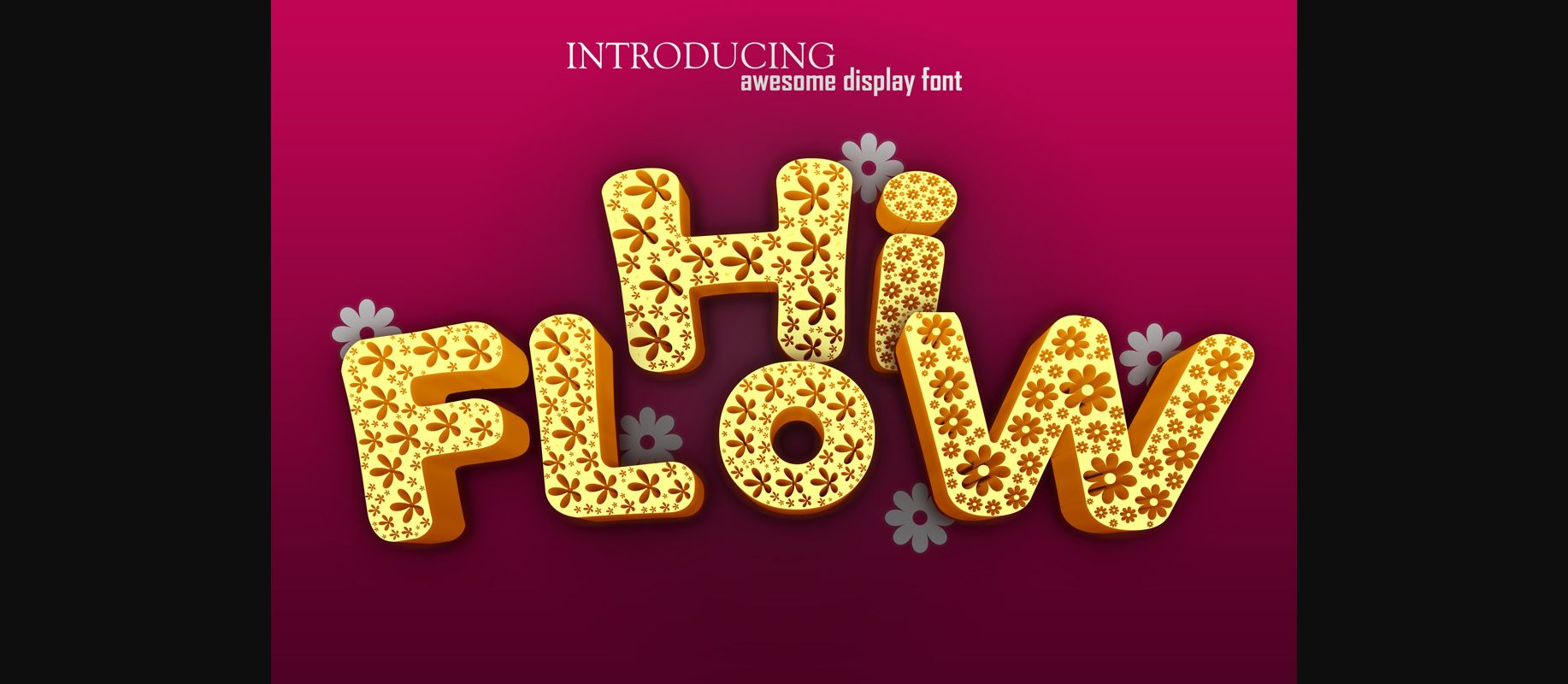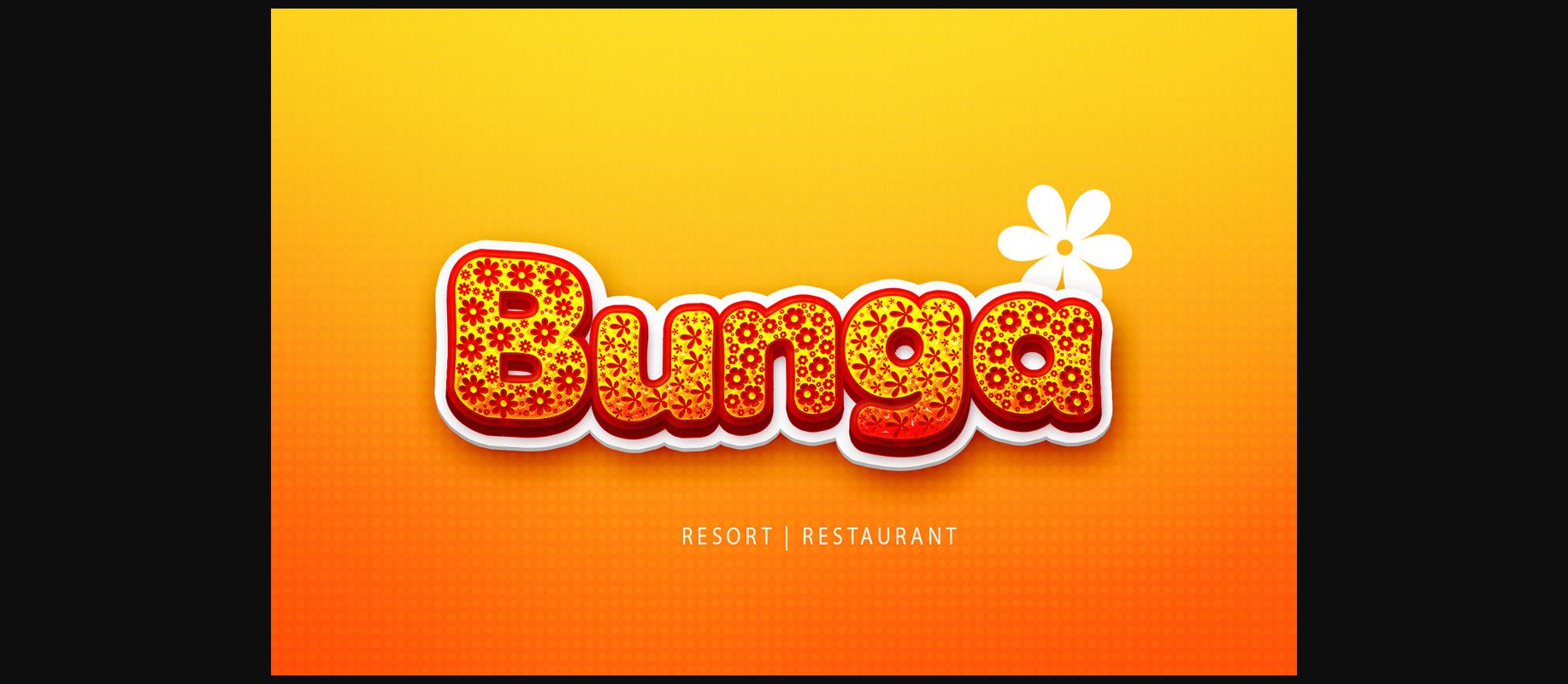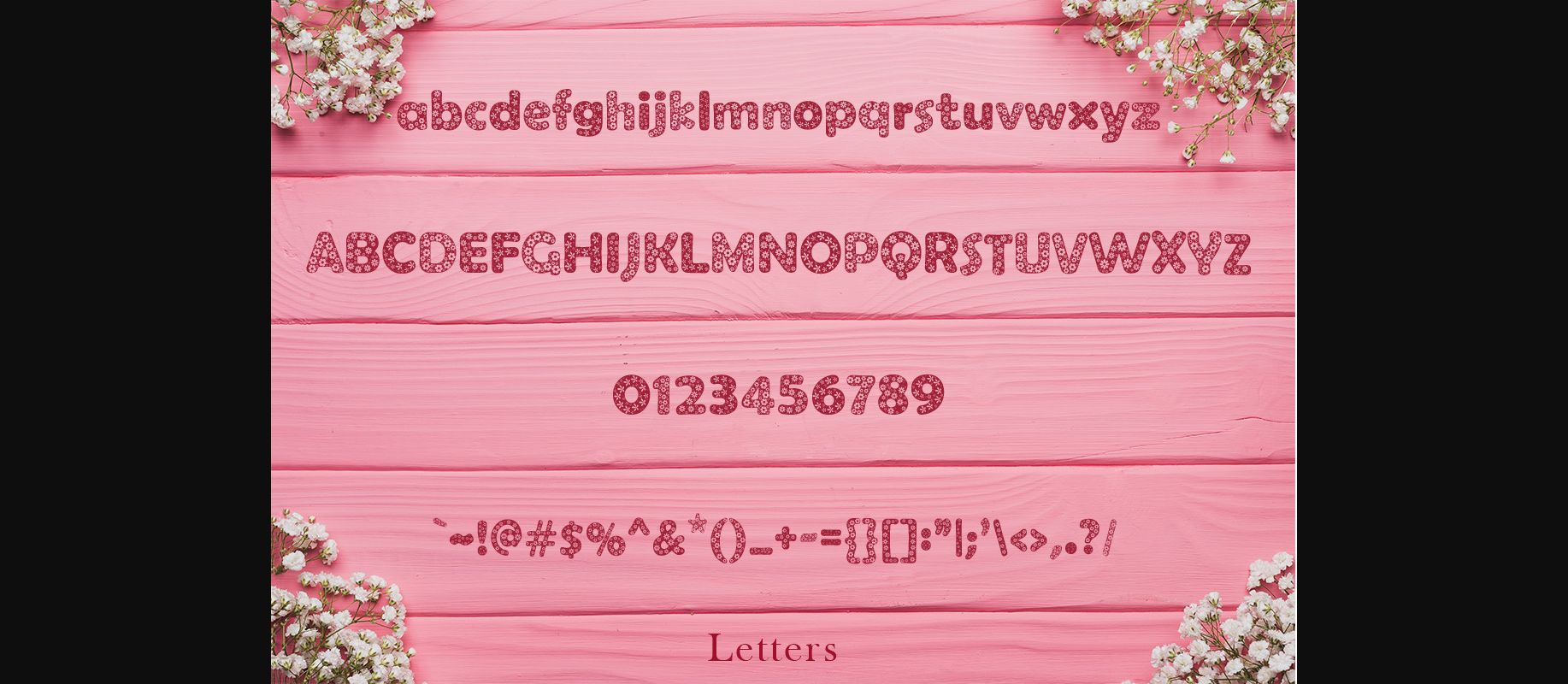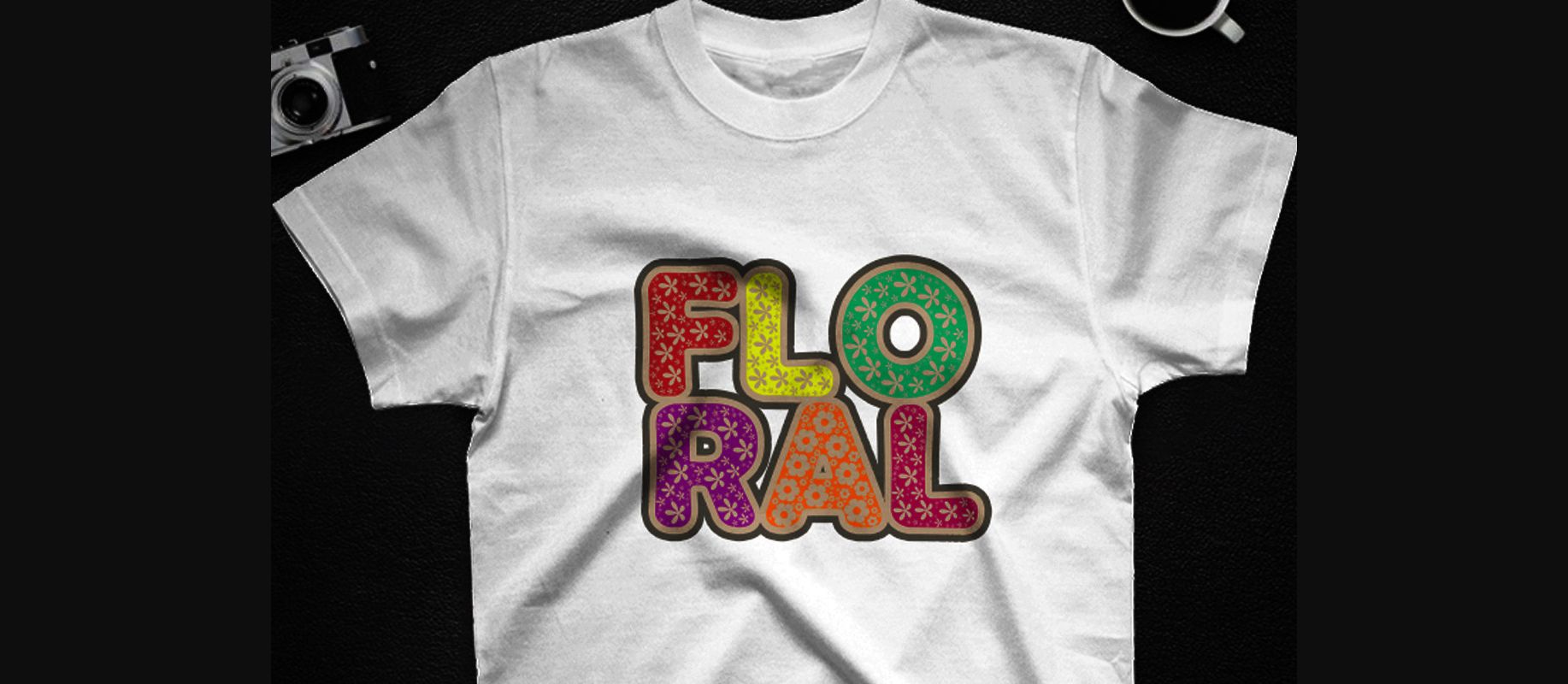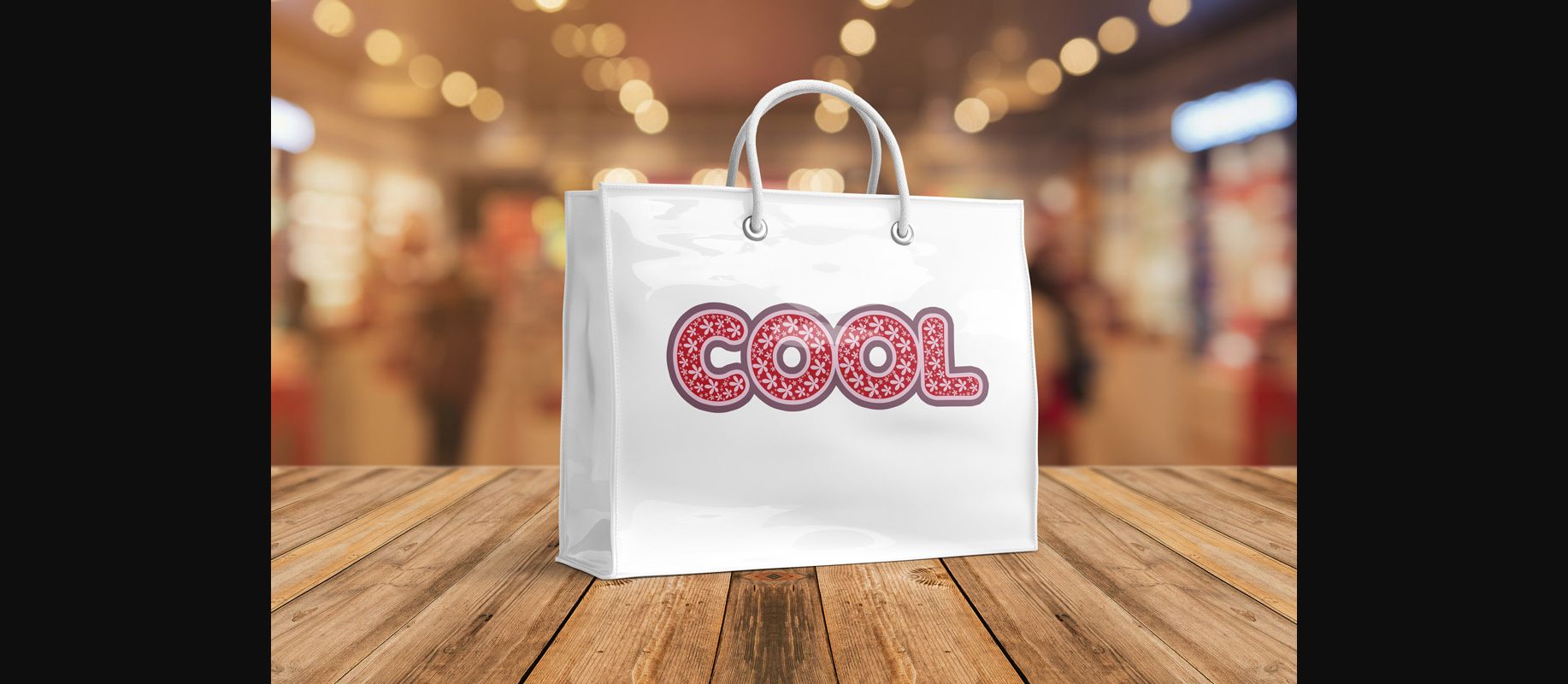
Hi Flow Font
About Hi Flow Font
Hi Flow is a fun, modern and neat decorative font, perfect for making your designs. Its characters are perfect for your product packaging, photography, labels, watermarks, stationery, and any project that requires modern typography and stylish.